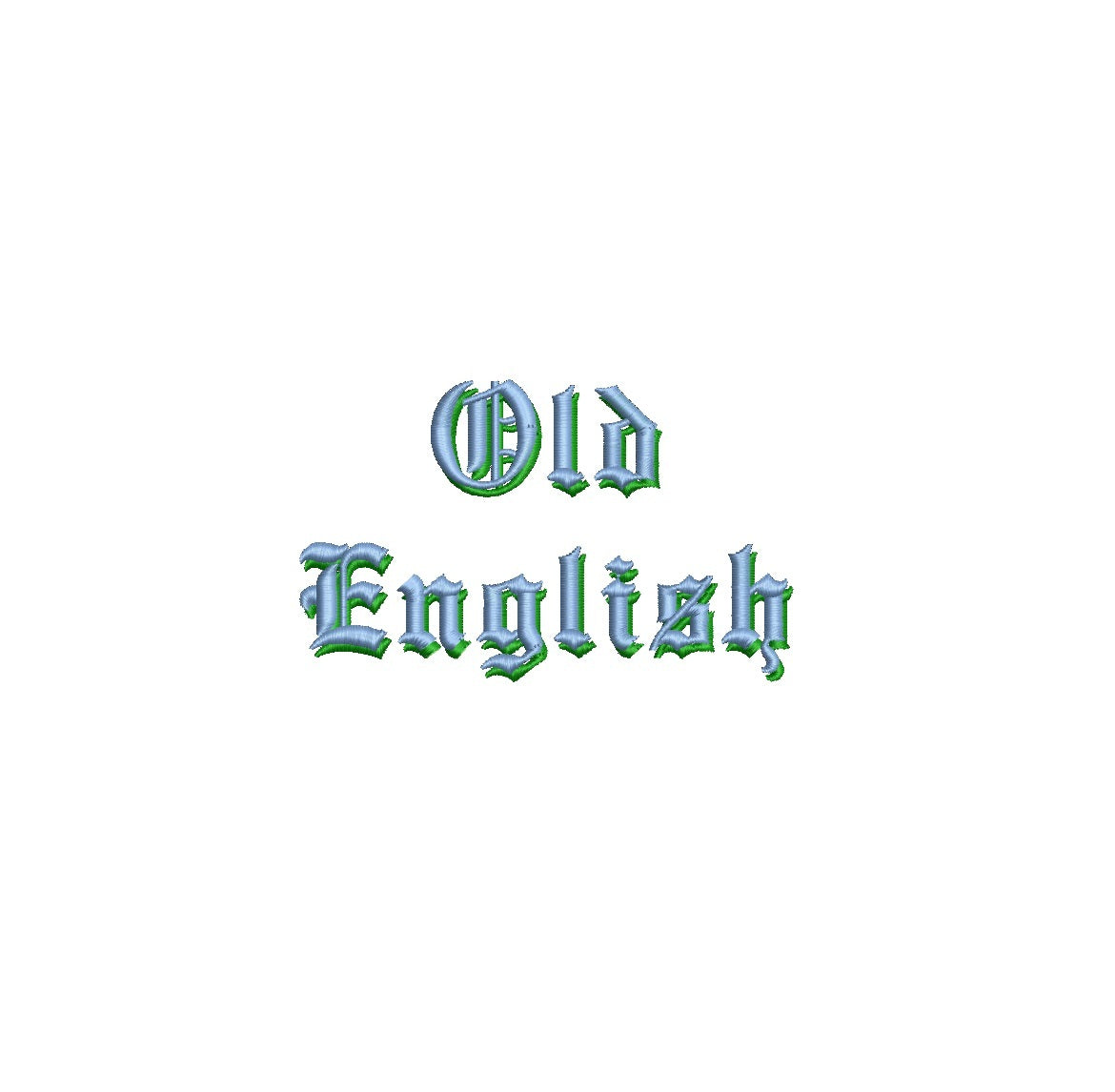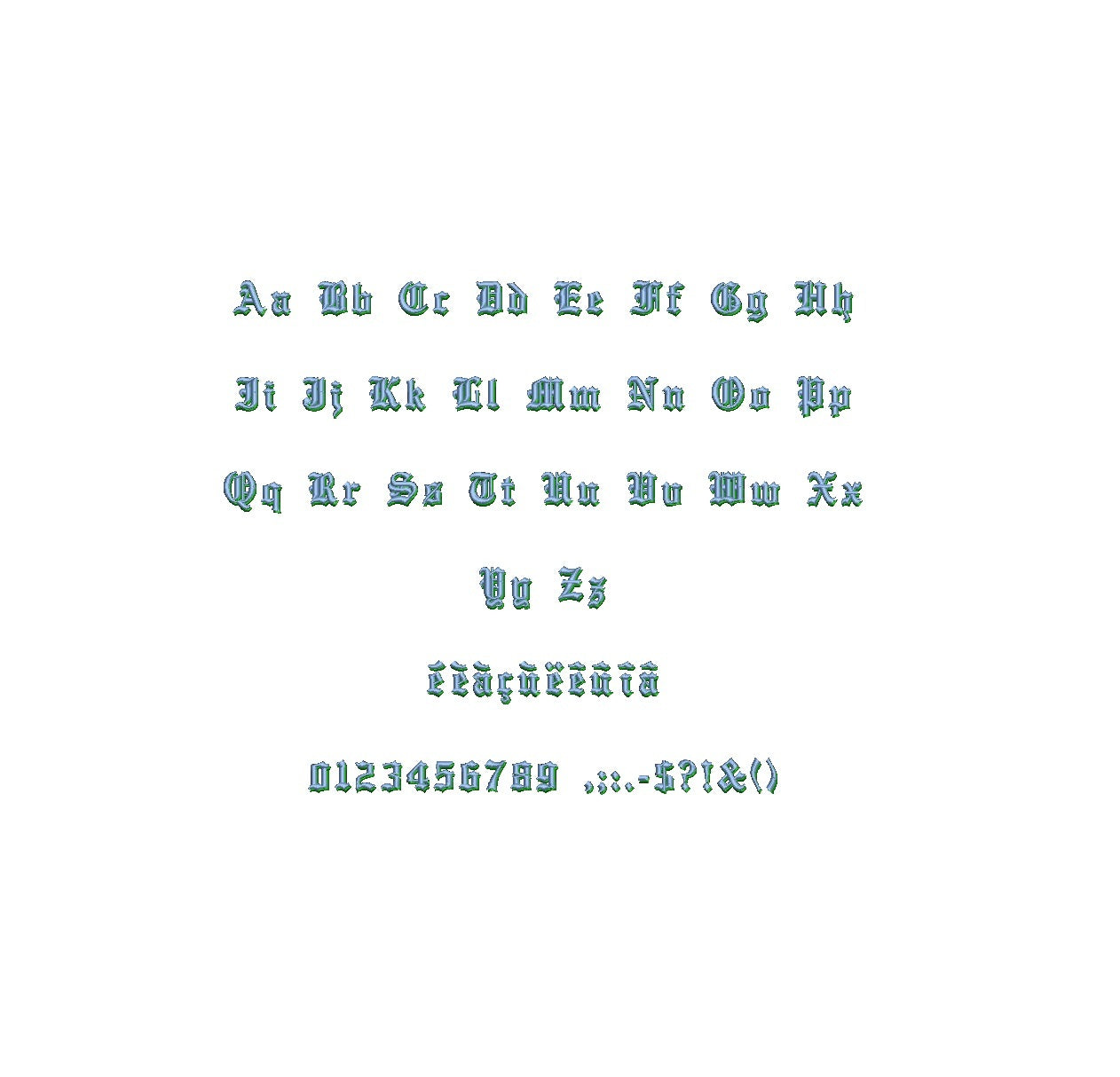
Discover the timeless charm of the Old English Shadow ESA font – your ultimate choice for captivating embroidery designs. Engineered for compatibility with Wilcom Studio e4.5.6 and Hatch 3 versions and beyond, this font seamlessly merges vintage aesthetics with modern functionality. Elevate your creations with ornate lettering that leaves a lasting impression. Crafted with precision, its shadow effect adds depth and dimension to your designs. Perfect for monograms, elegant text layouts, and more. Unleash your creativity effortlessly, as Old English Shadow ESA font brings a touch of classic elegance to your embroidery projects. Elevate your artistry today!